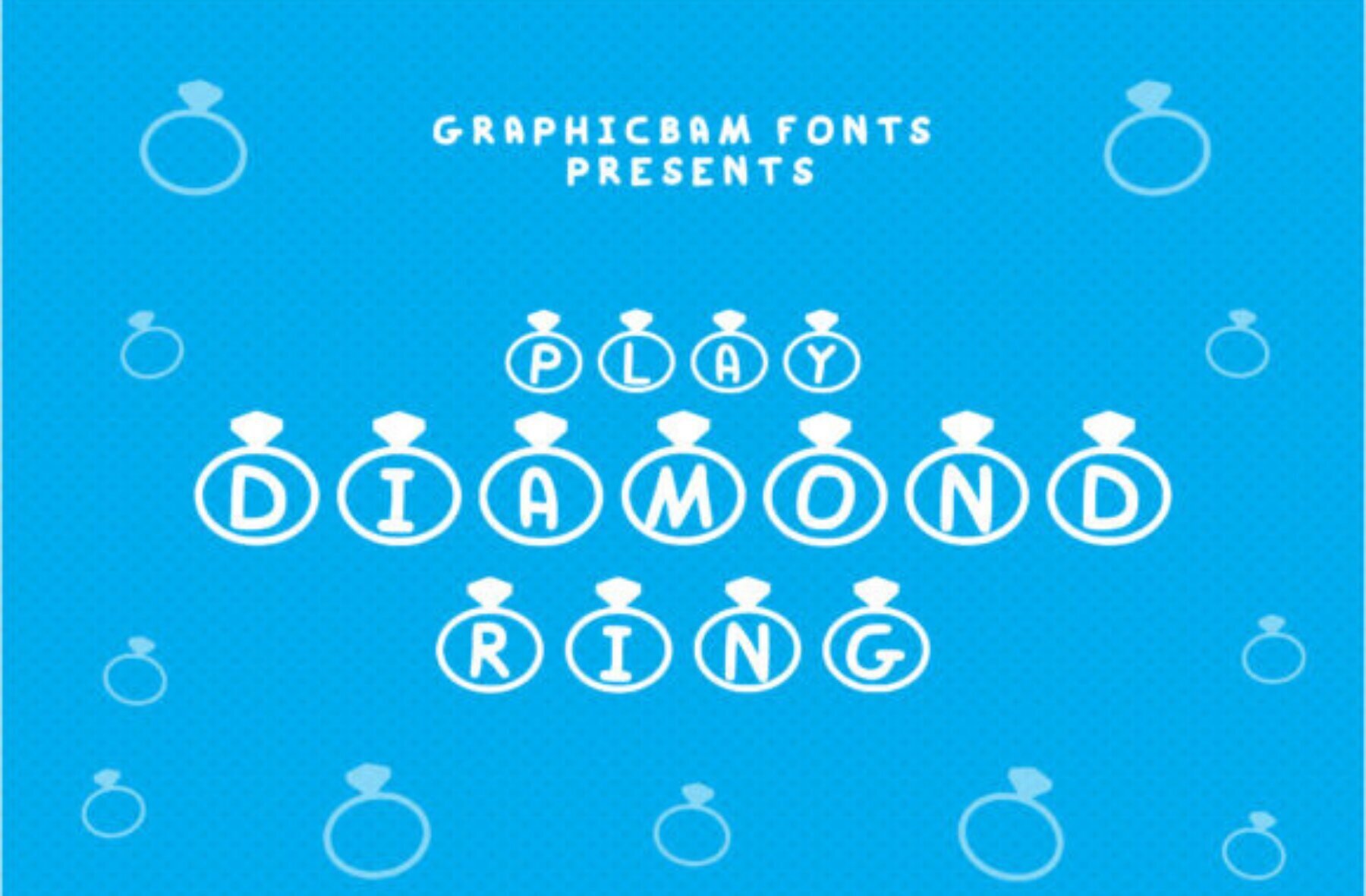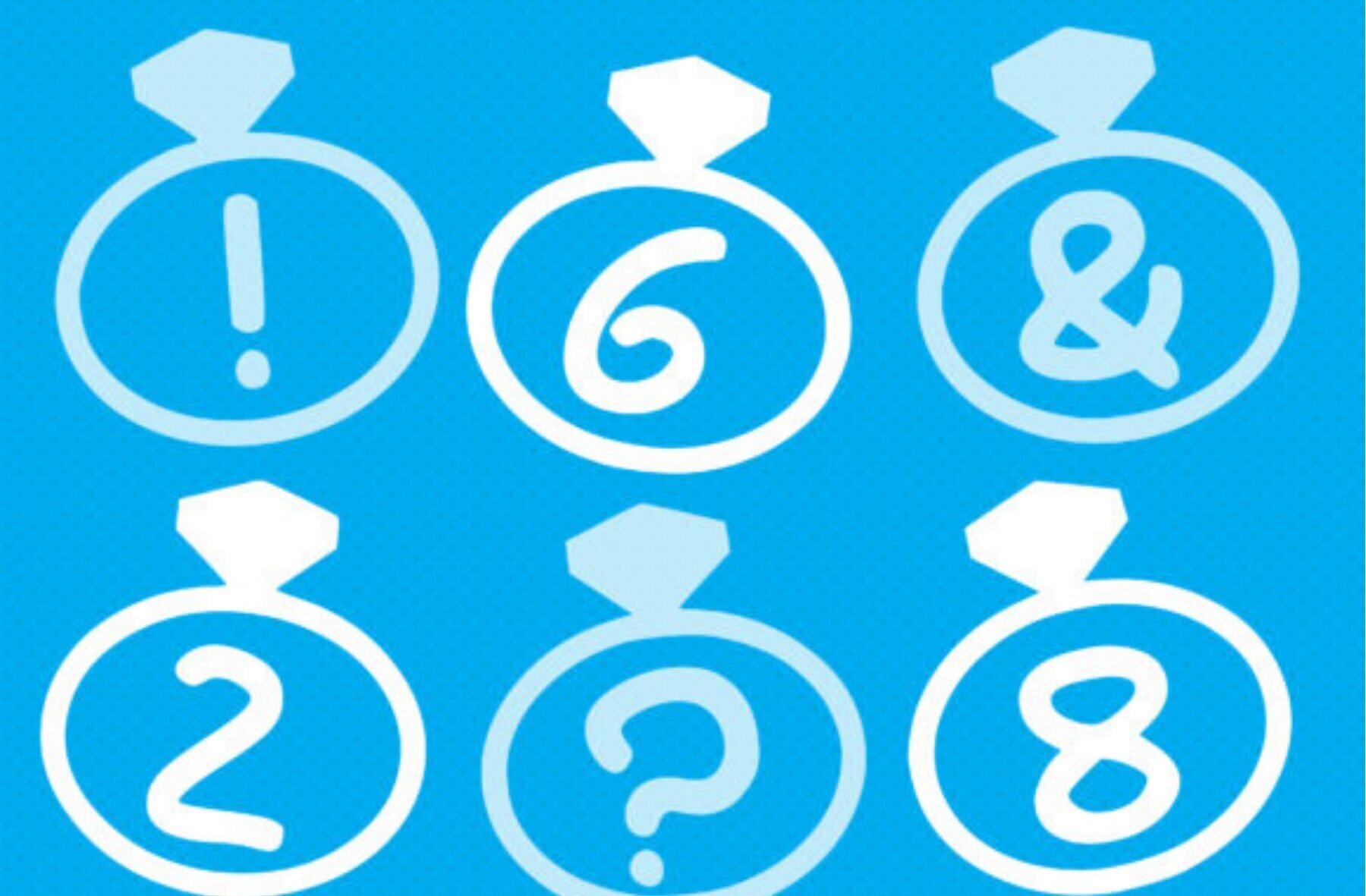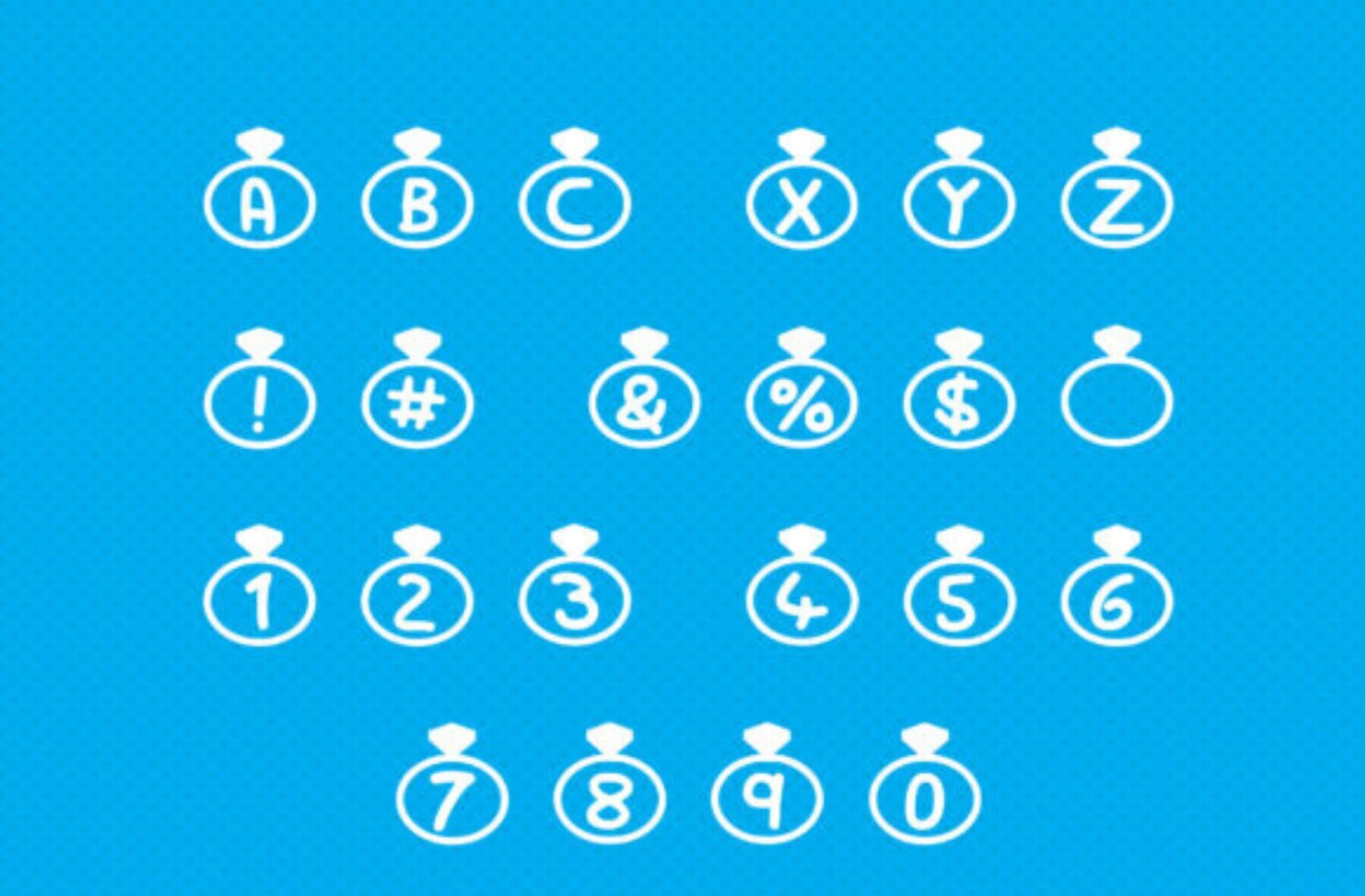
Play Diamond Ring Font
Play Diamond Ring Regular
Transform your wedding atmosphere with the Play Diamond Ring font, designed to add a touch of elegance to your special day. This charming decorative font enhances the beauty of wedding invitations, banners, and gifts, ensuring each piece is memorable and stylish.Play Diamond Ring - Perfect for Wedding Festivities